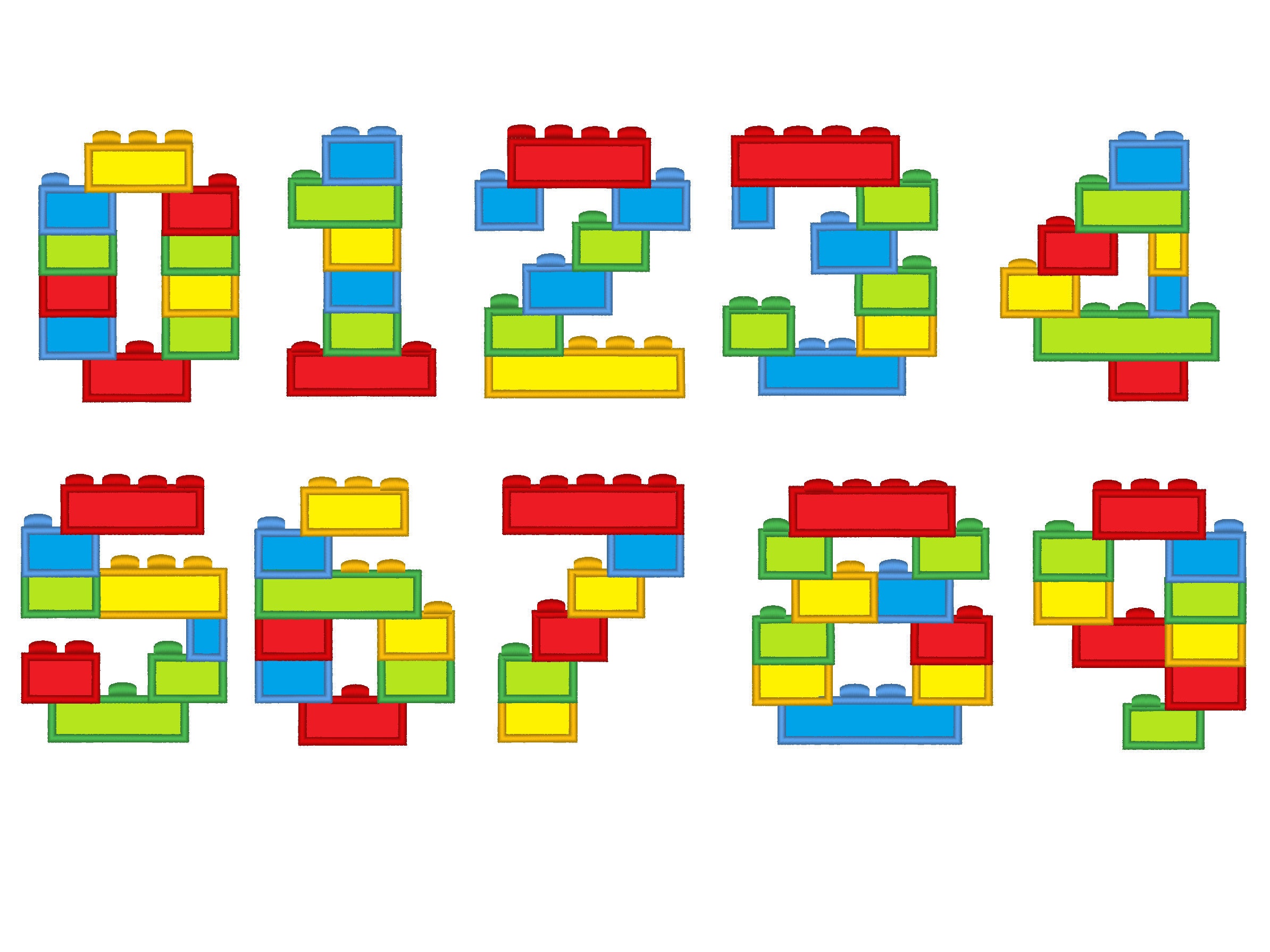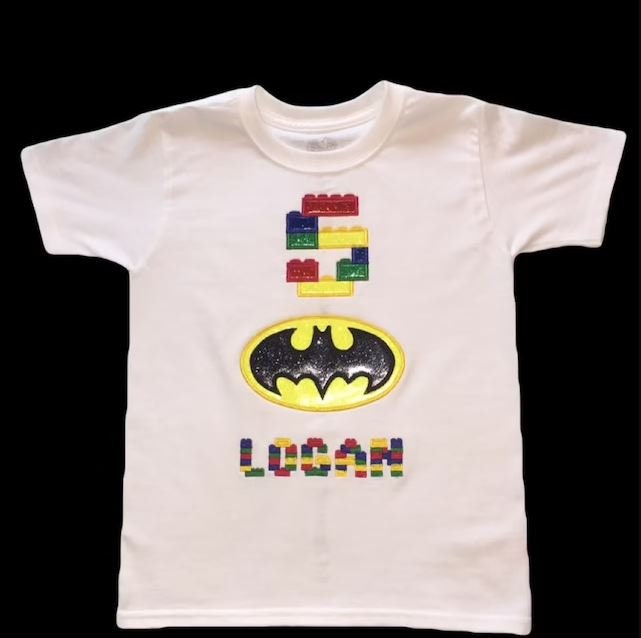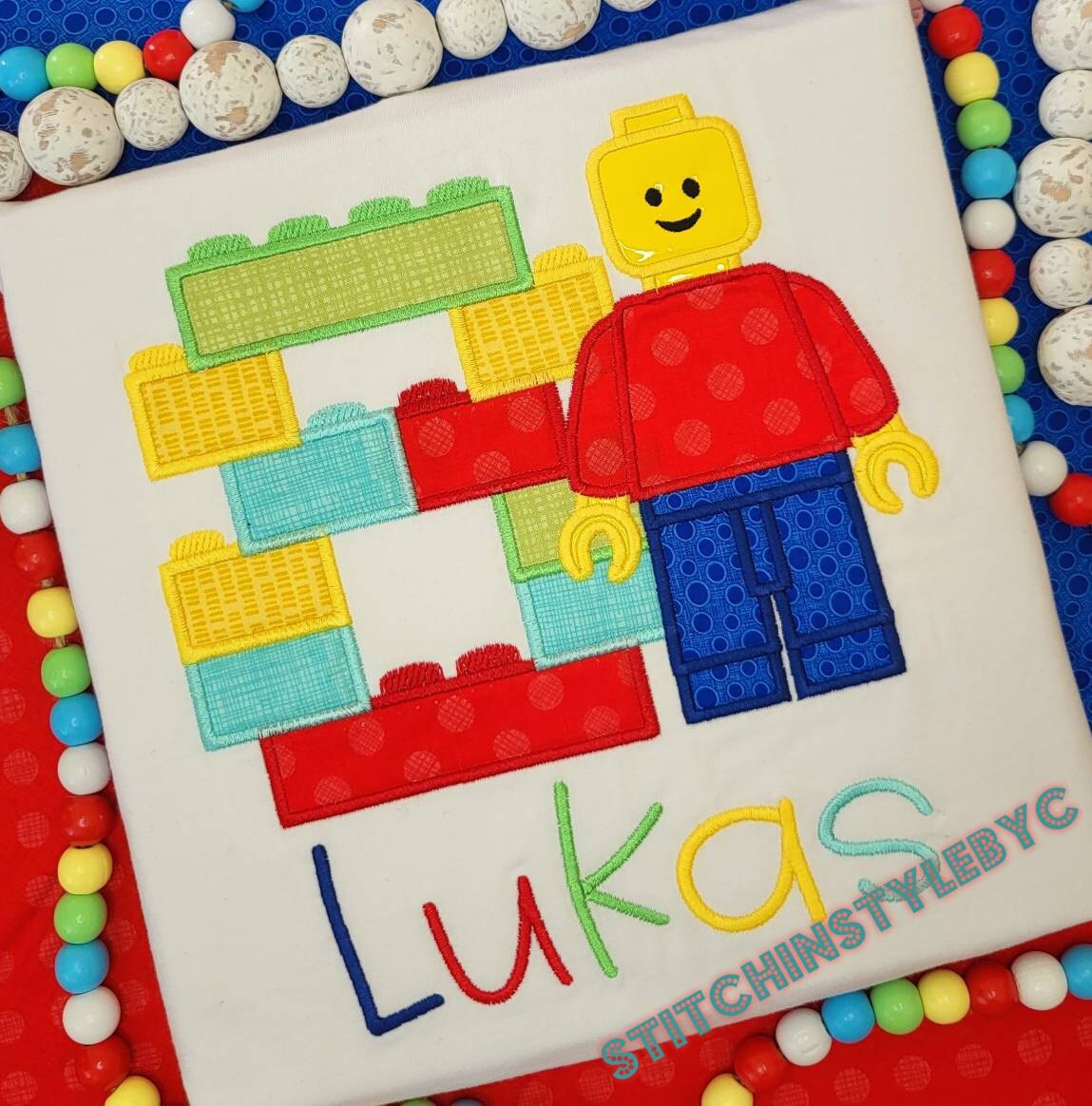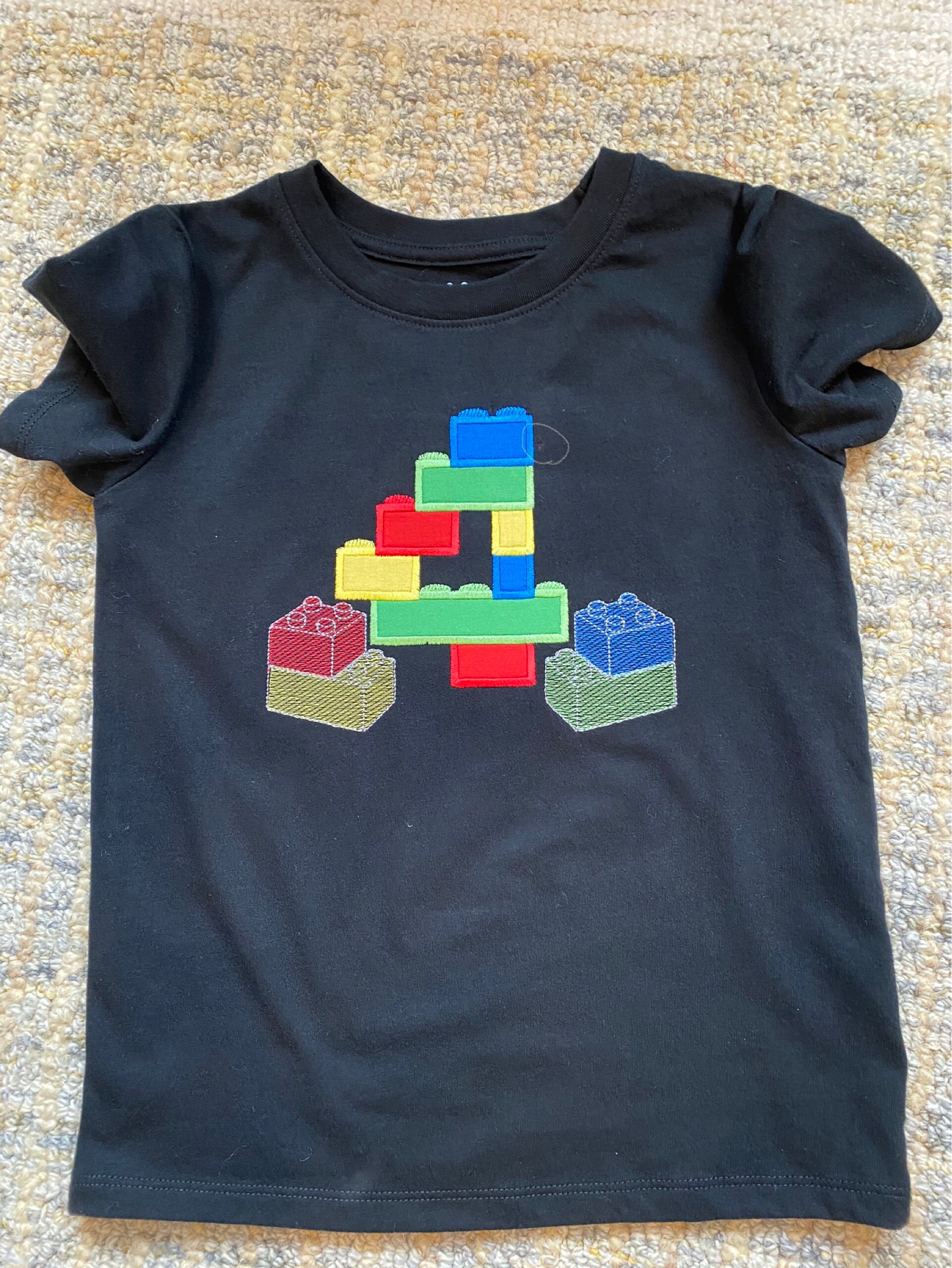
Block Numbers blocks, brick block Birthday Numbers SET machine embroidery designs in assorted sizes boys numbers applique design
Numbers from 0 up to 9
Applique designs